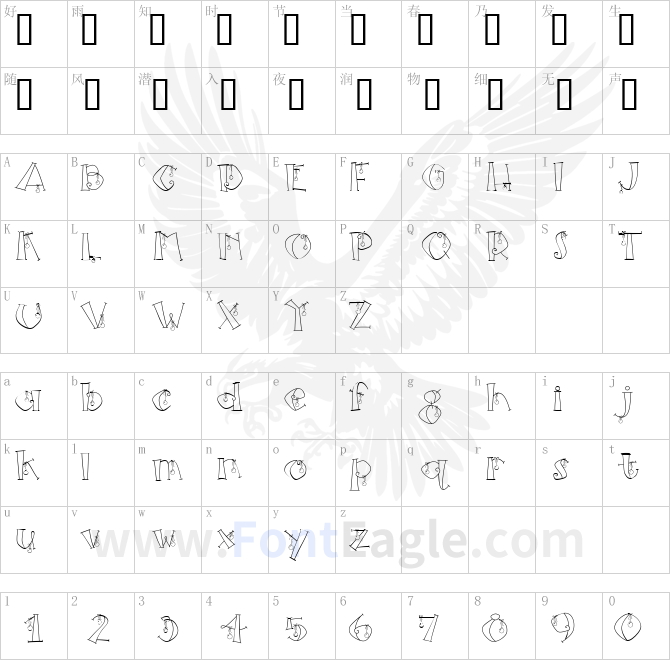
CK-Ornament is a great font, widely used in graphic design, single-page menu design, poster design and other fields, and is deeply loved by designers.CK-Ornament download.